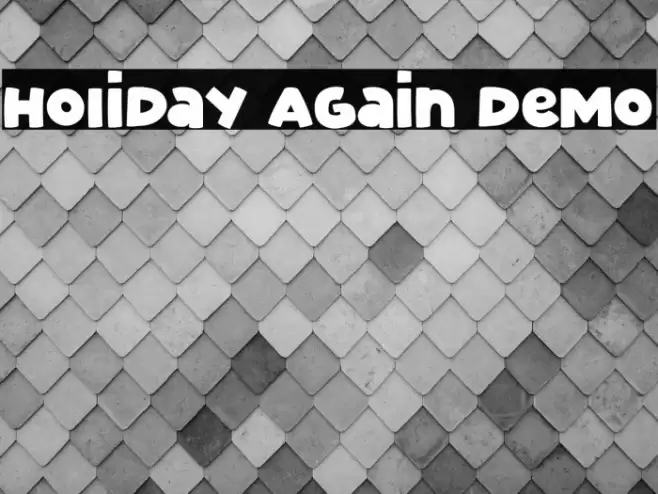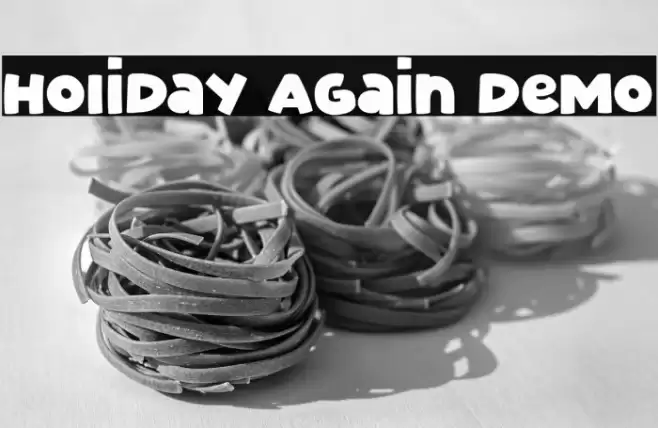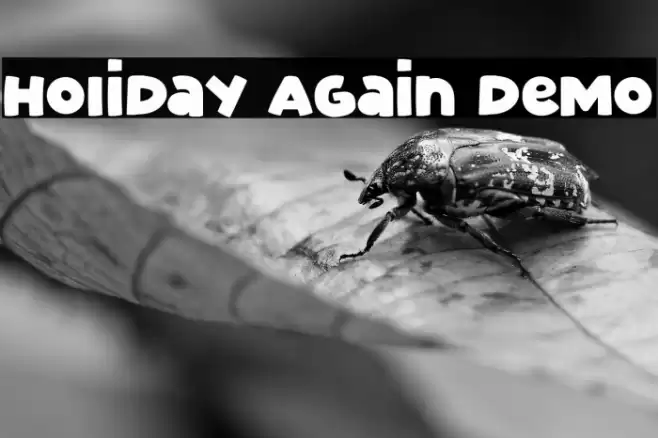
Holiday Again Demo Font
Holiday Again Demo Description
This font features a playful and bold style with a slightly irregular and hand-drawn appearance. The characters are thick and rounded, giving them a friendly and approachable look. The uppercase and lowercase letters maintain a consistent weight, contributing to a cohesive design. The font's whimsical nature is emphasized by its unique character shapes, which add a sense of fun and creativity. It is well-suited for projects that require a lively and informal touch, making it ideal for children's books, playful branding, or casual invitations.
| Proposed Projects | Ideal for children's books, playful branding, casual invitations, and creative projects. |